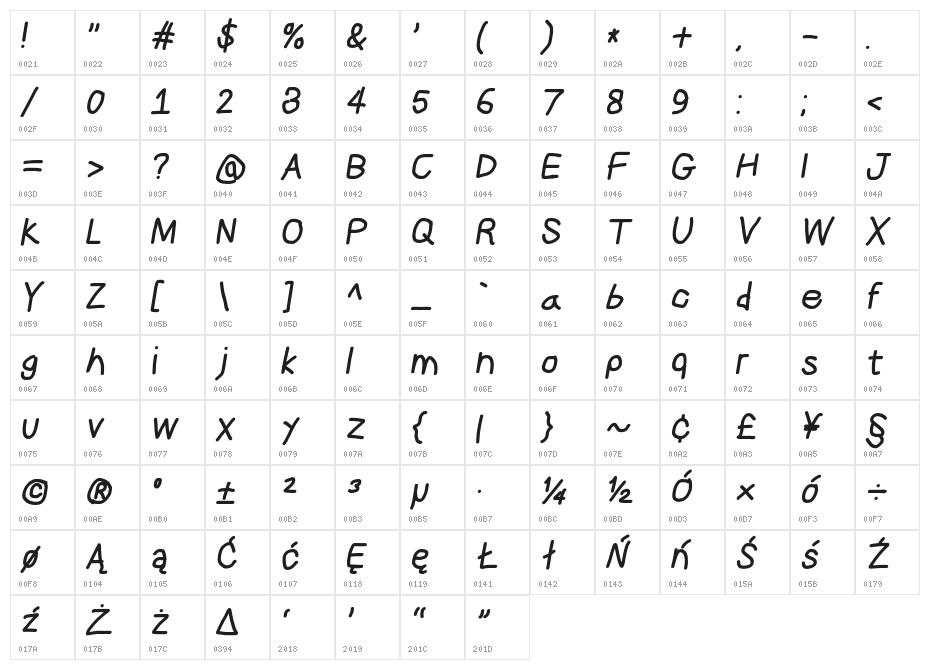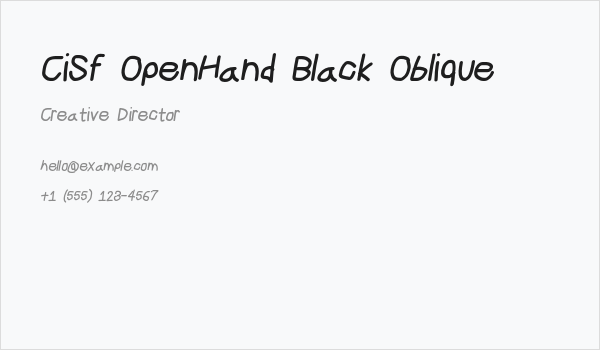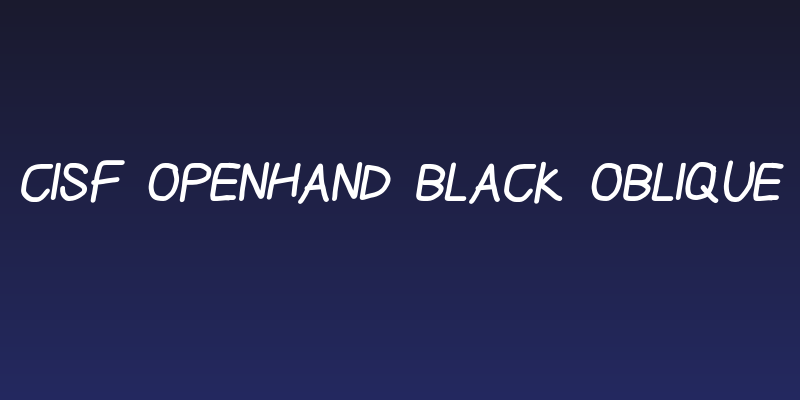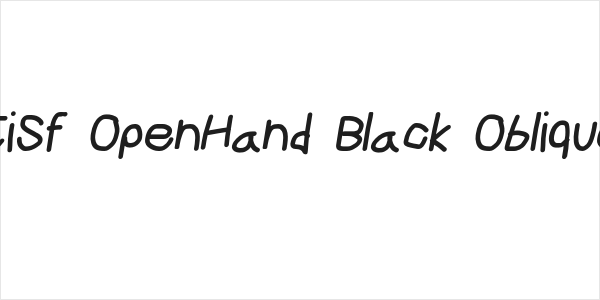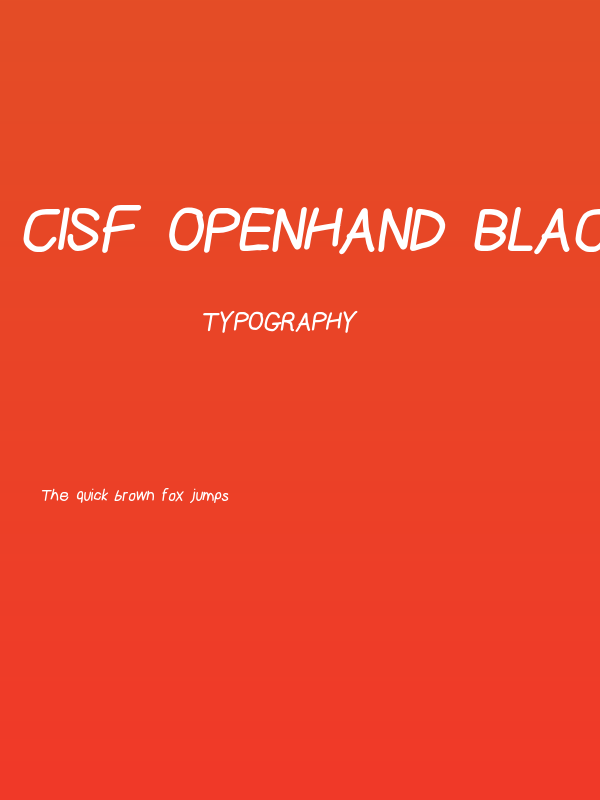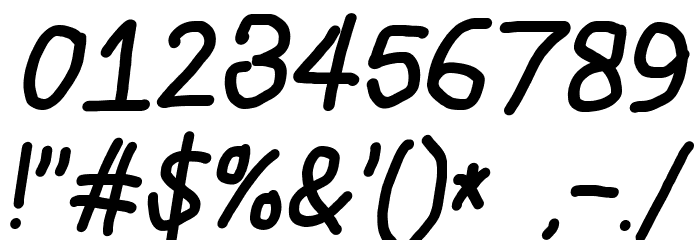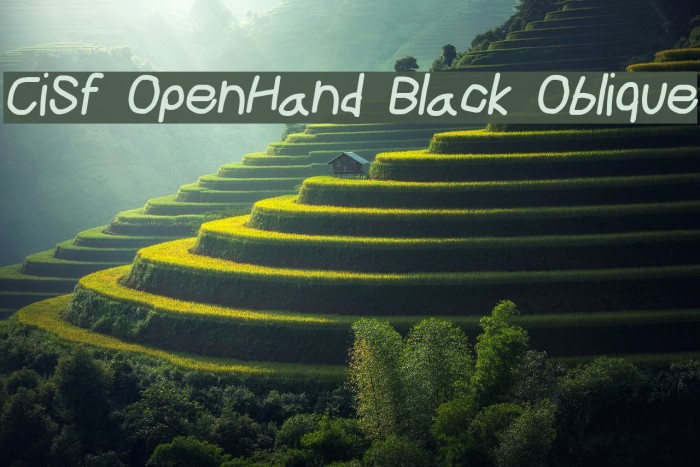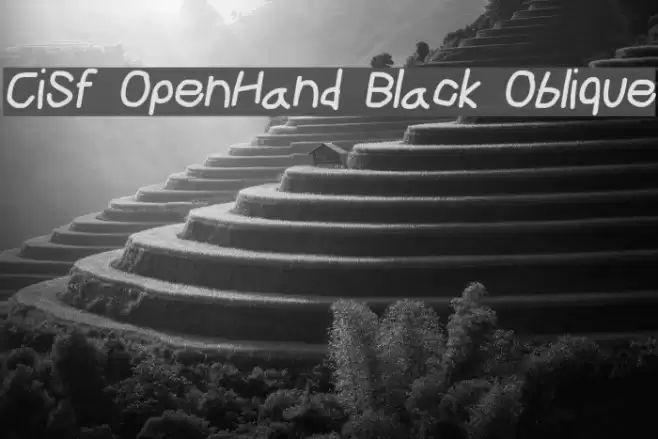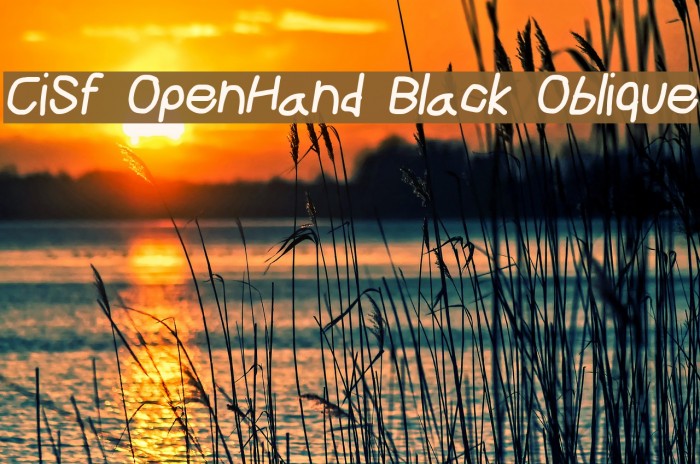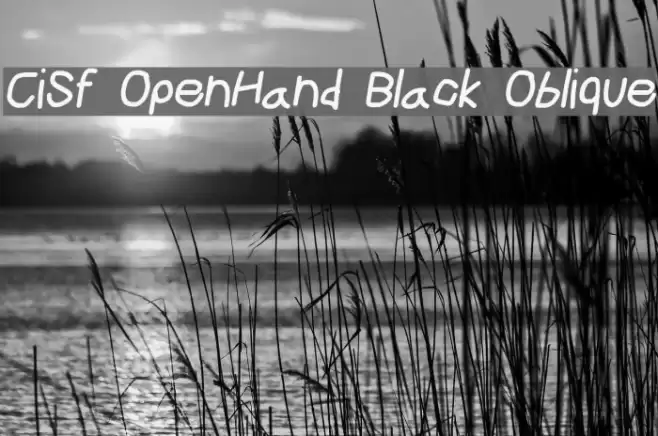
CiSf OpenHand Black Oblique Font
CiSf OpenHand Black Oblique Description
This font features a playful and casual handwritten style, characterized by its smooth, flowing strokes and slightly slanted orientation. The letters are rounded and maintain a consistent thickness, giving it a friendly and approachable appearance. The uppercase and lowercase letters are well-proportioned, with a slight tilt that adds a dynamic feel. The numerals and special characters follow the same style, ensuring uniformity across all glyphs. This font's informal and relaxed nature makes it suitable for projects that require a personal touch or a creative flair.
| Overall Style | Casual |
| Use Case | Headlines, Informal text, Creative projects |
| Proposed Projects | Ideal for greeting cards, invitations, children's books, and casual branding. |